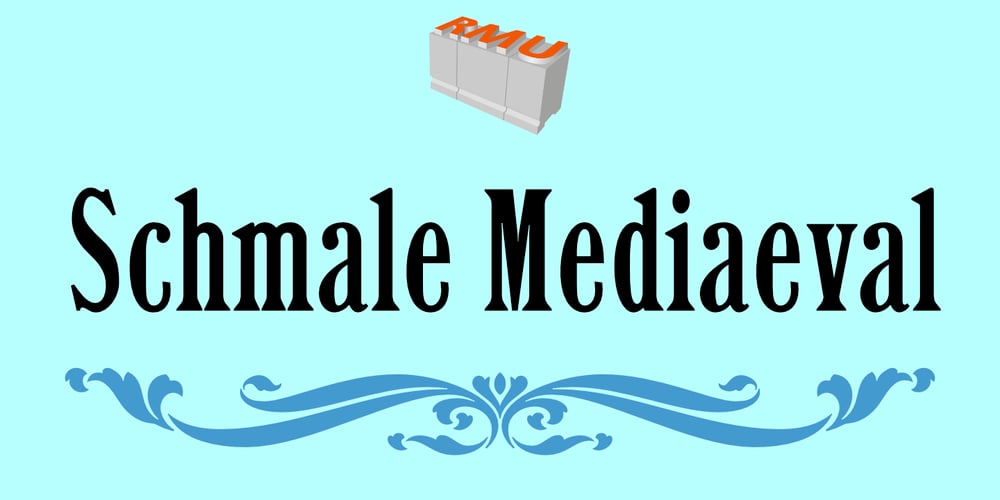
Schmale Mediaeval Font Family was designed by Ralph M. Unger and published by RMU. Schmale Mediaeval contains 1 styles and family package options. This narrow neoclassical font is based upon Schelter & Giesecke’s Schmale Mediäval which was originally released in 1840.By typing [alt] + [shift] + p respectively [alt] + p you have access to the framing elements as seen on the posters.